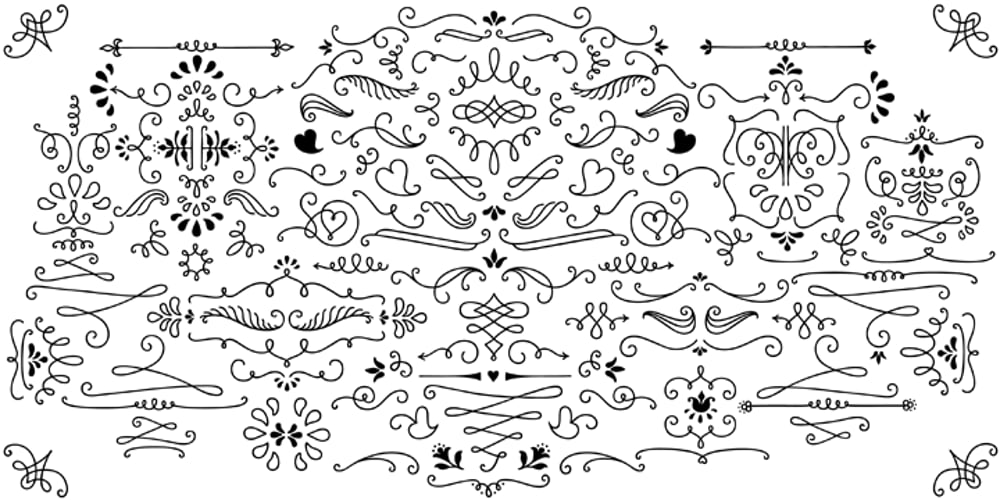
LiebeOrnaments Font Family was designed by Ulrike Rausch and published by LiebeFonts. LiebeOrnaments contains 1 styles and family package options. You think swirls, swashes and curls are kitsch? Wait till you’ve seen our self-confident set of uncomplicated hand-drawn ornaments. If you’re looking for the right flourish to spice up your greeting cards or prettify your wedding invitations, look no further! With LiebeOrnaments your designs will look as accurate as if you had spent three weeks in calligraphy boot camp—while maintaining an aura of softness and loveliness. This single font includes an impressive set of almost 200 variations on classical ornaments (many accessible directly with the keyboard). LiebeOrnaments is the perfect companion for our best-selling typeface LiebeErika, which has a cameo appearance on some of the samples shown above.